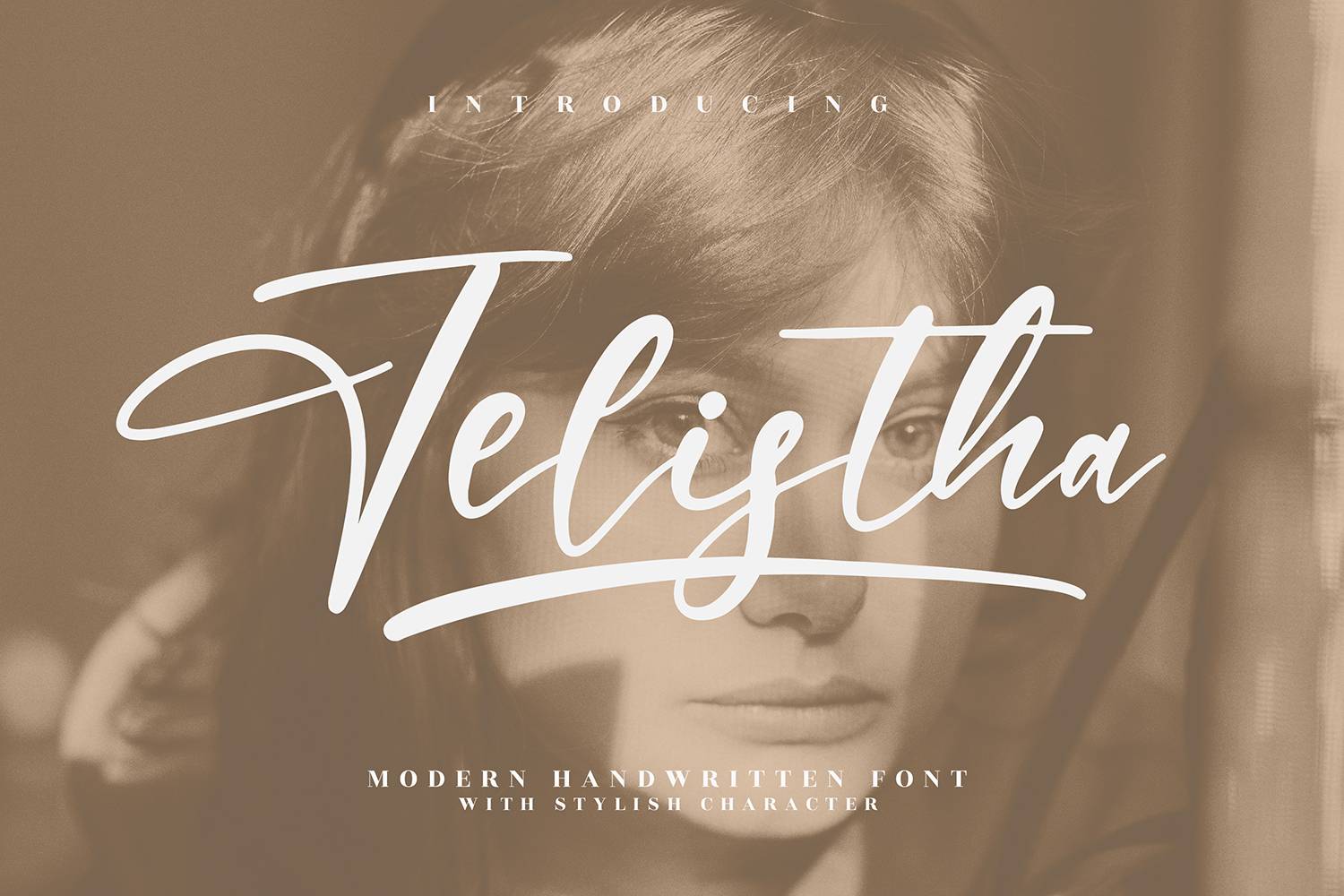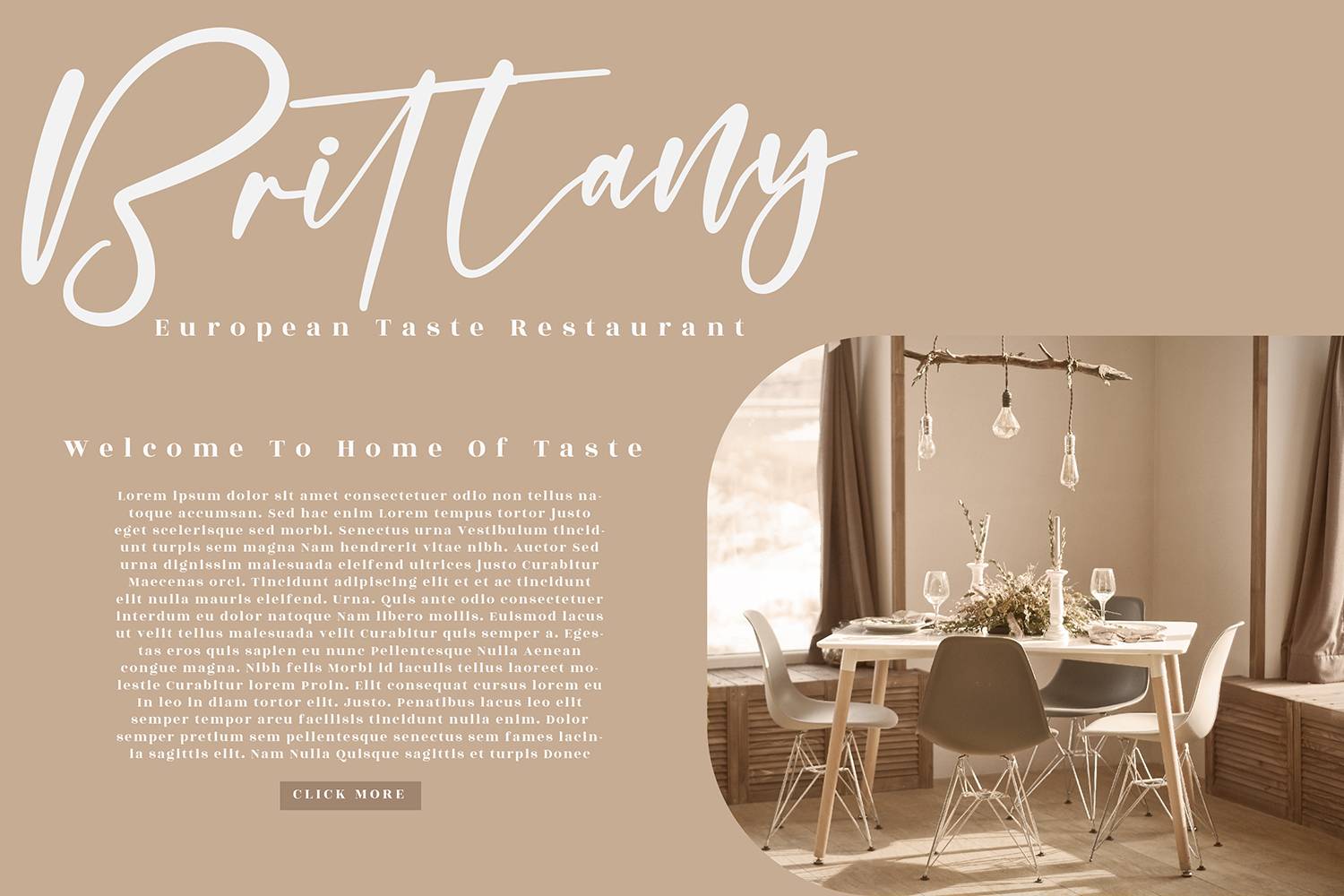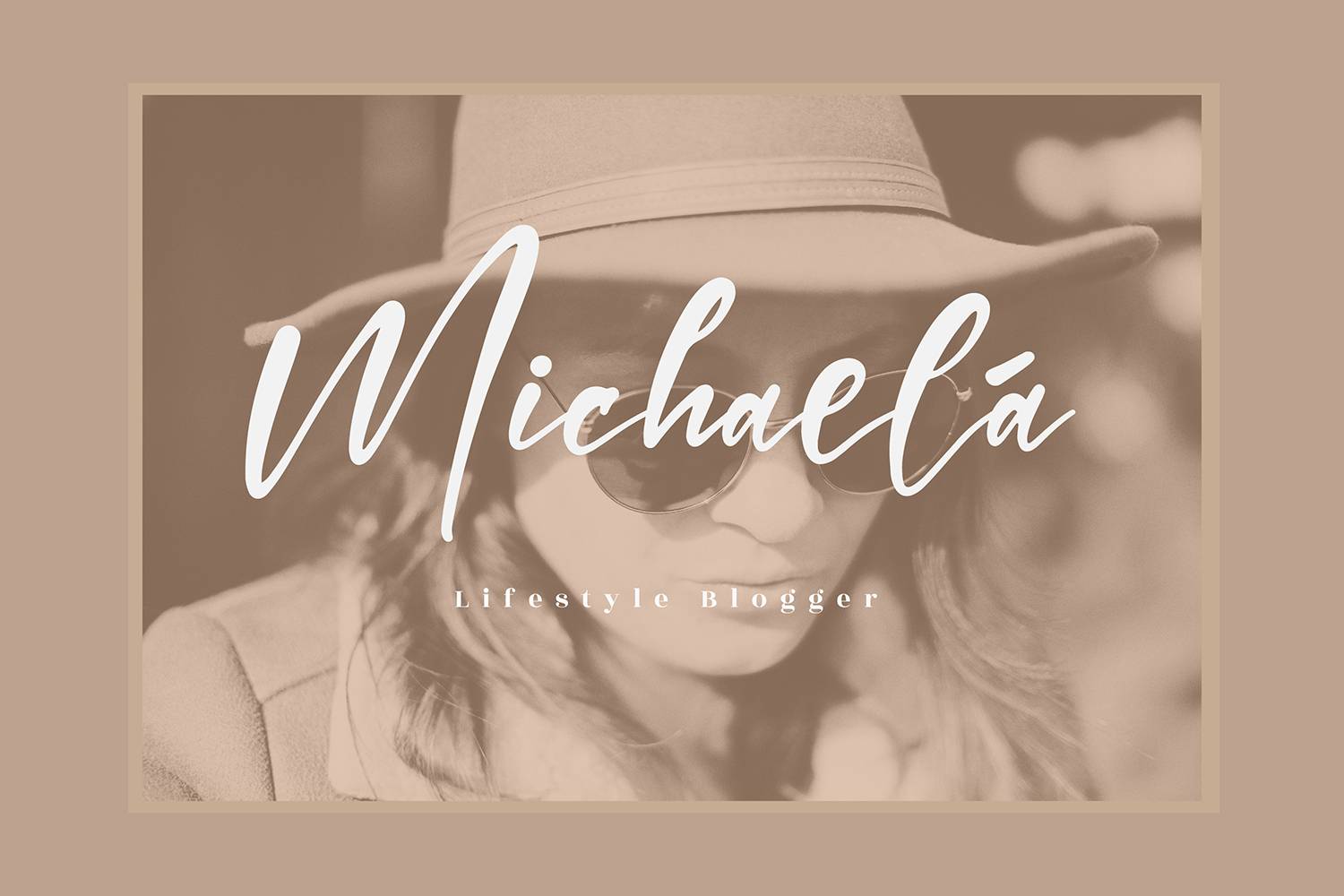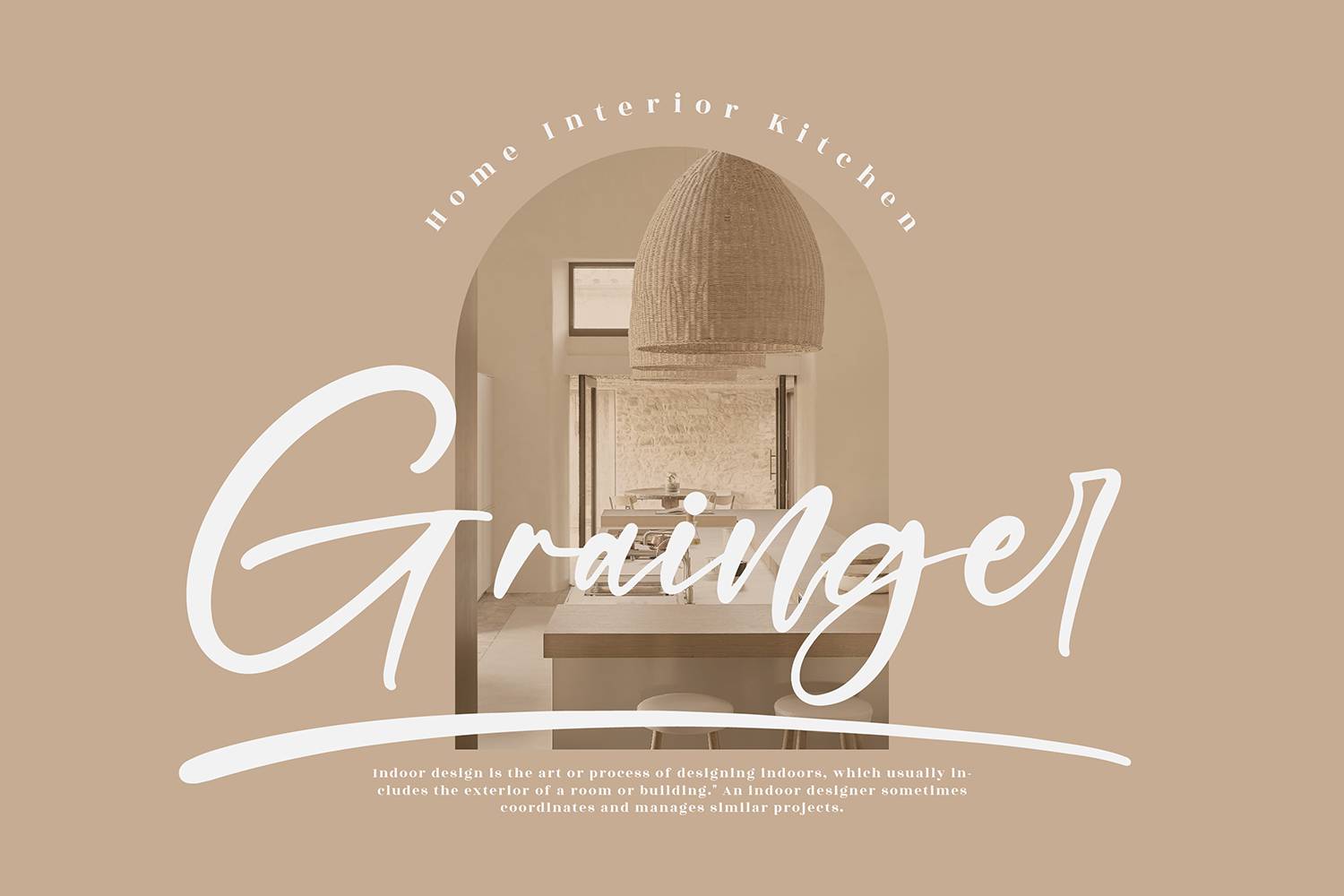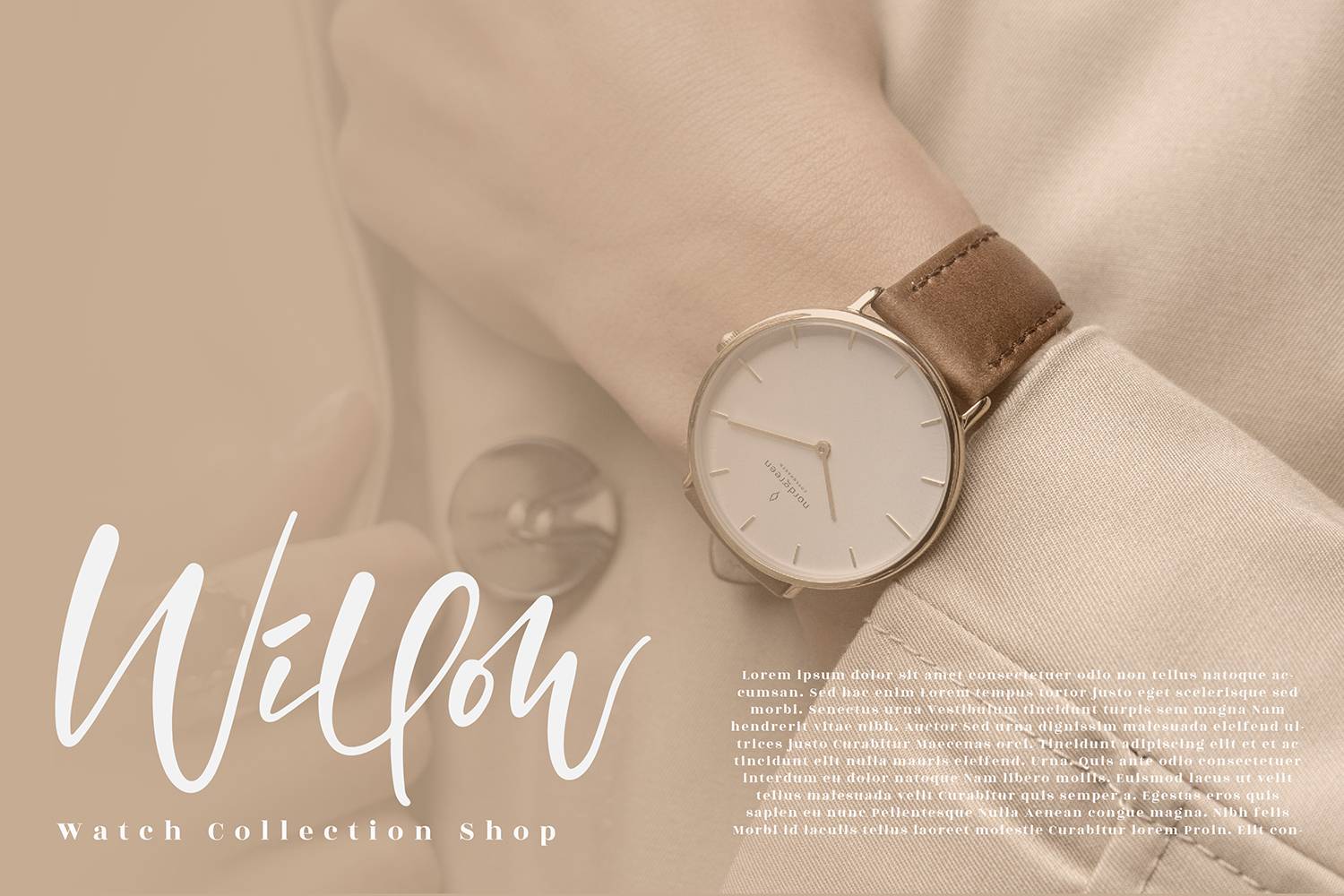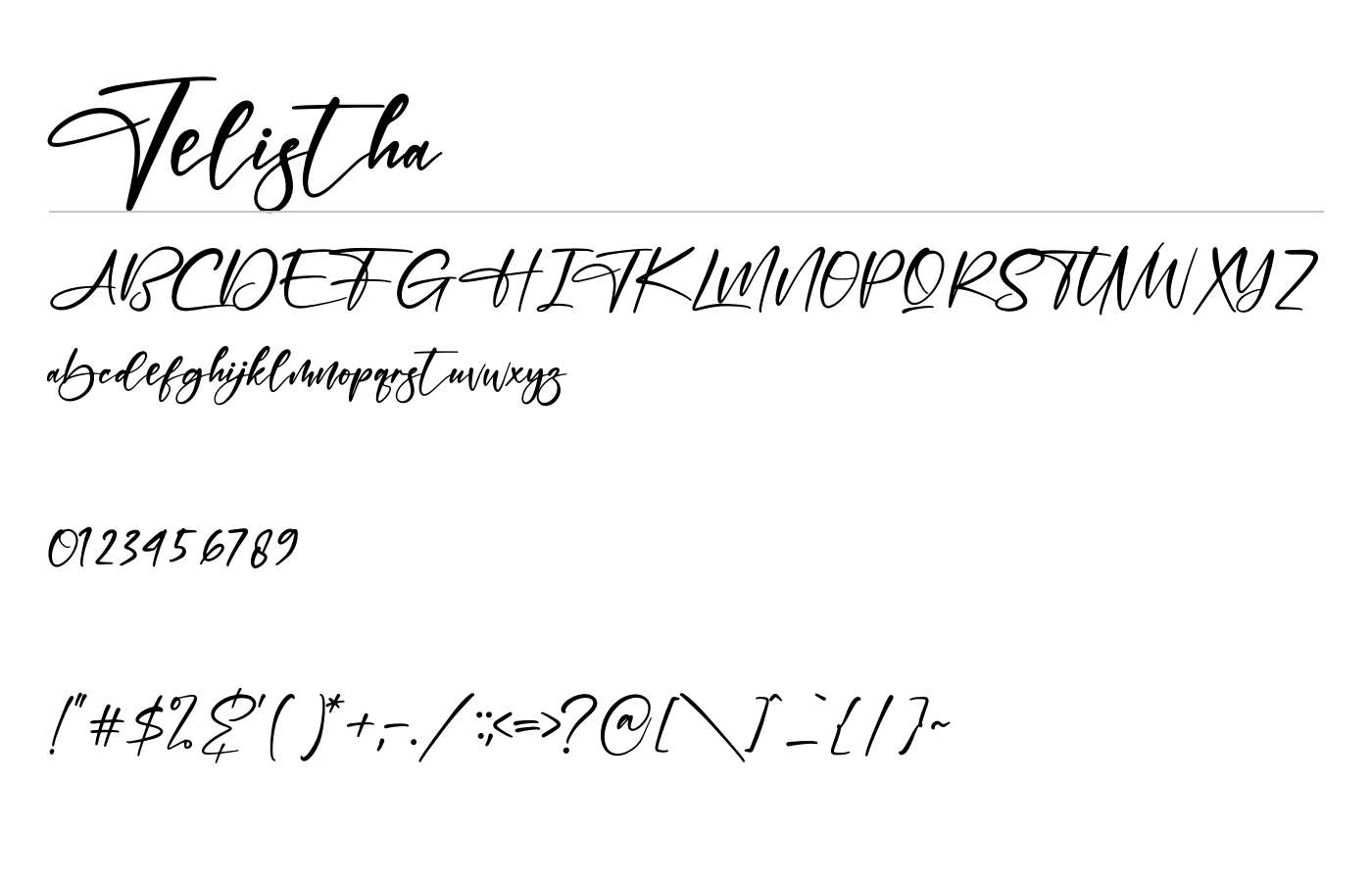
Jelistha is an elegant script font with a flowing, handwritten style that combines a graceful, high-contrast stroke with casual sophistication. Its tall, slender letterforms and smooth curves make it ideal for stylish branding, invitations, and artistic headlines where a personal, refined touch is desired. This font works beautifully in fashion, beauty, and creative projects that need a delicate yet confident expression.
Jelistha Font